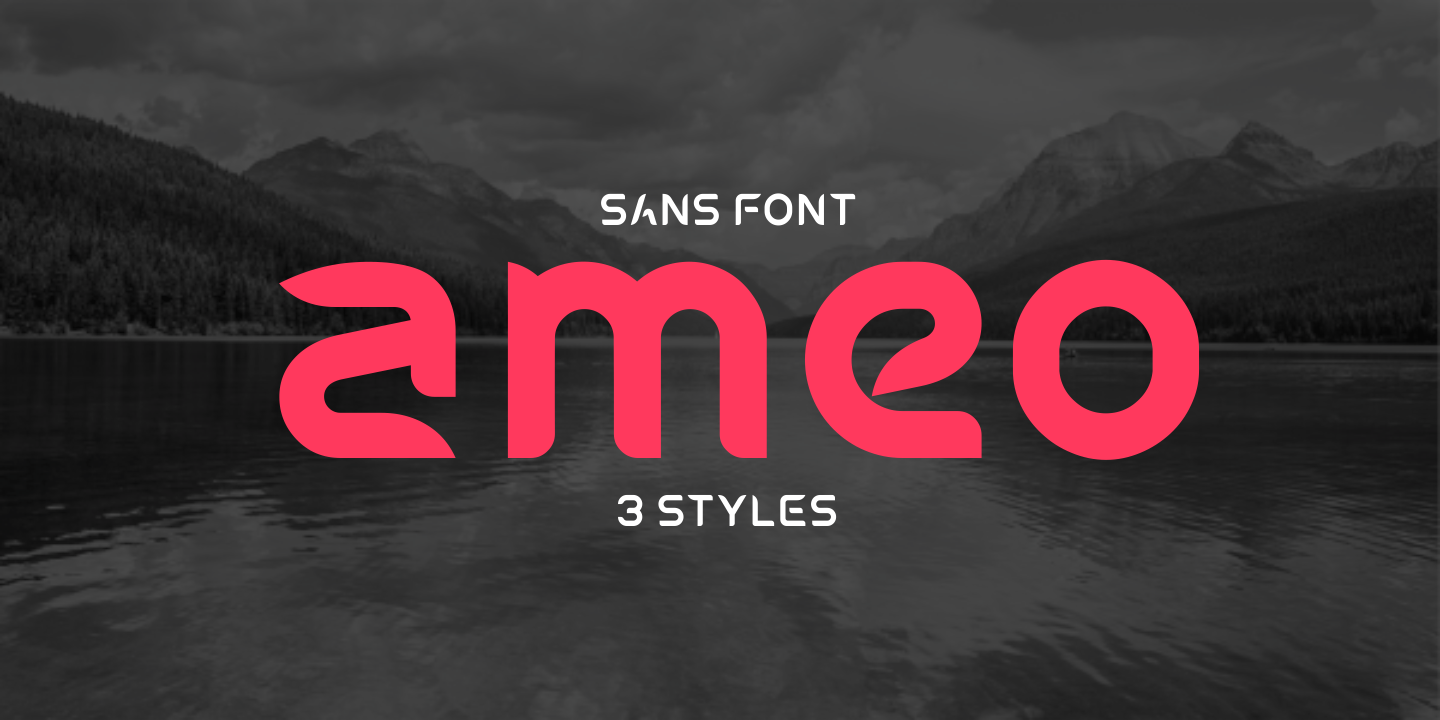
This versatile font is perfect for modern branding projects, contemporary web design, professional presentations, clean editorial layouts, tech startup identities, minimalist packaging design, corporate communications, and sophisticated advertising campaigns. Its balanced character makes it ideal for projects requiring reliable functionality with subtle distinction.
Ameo Font is exciting because it achieves perfect harmony between form and function with letterforms that provide exceptional readability while maintaining distinctive personality. The font features carefully crafted proportions, optimized spacing, and refined details that ensure consistent performance across all applications without sacrificing visual interest. Its adaptable nature makes it suitable for diverse design contexts while maintaining coherent brand identity.
The Ameo Font family typically includes comprehensive weight variations from thin to bold, along with matching italics and extended character sets. Many versions feature professional OpenType features, multilingual support, and optimized kerning that enhance its utility for international business applications and contemporary design workflows.
Whether you're developing professional brand identities, digital platforms, or contemporary marketing materials, Ameo Font Free Download provides dependable sophistication with modern appeal. This typeface transforms everyday communications into polished statements that resonate with diverse audiences who appreciate clean, efficient design. Its versatile character ensures consistent quality across all media while providing the reliability and professionalism that modern brands require, making it an essential tool for designers who need Ameo Font Free Download that delivers exceptional performance with understated elegance.